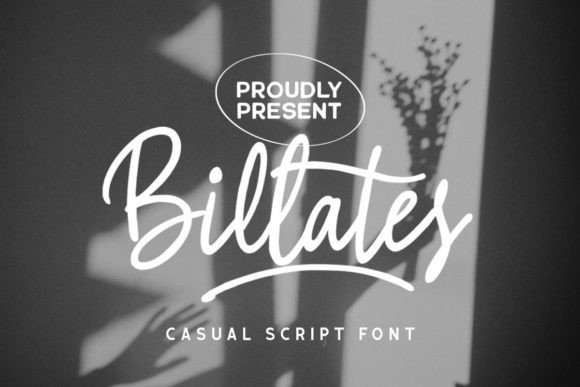
Dive into the world of Billates, a spectacular script font that embodies the essence of relaxed sophistication. Its fluid strokes, reminiscent of a carefree hand, weave a tale of elegance and simplicity. This font possesses an innate ability to transform your design projects into works of art.
With Billates, you can effortlessly craft handwritten notes that radiate warmth and thoughtfulness, and product packaging that exudes a polished yet approachable charm. Its versatility extends to social media posts, adding a touch of casual elegance to your online presence.
Step into the realm of wedding invitations and programs, where Billates flourishes as the perfect companion. Its graceful curves and delicate details lend an air of romance and timeless beauty to these cherished keepsakes. Capture the essence of love and commitment with every letter penned in this exquisite font.
But Billates' allure doesn't stop there. It seamlessly adapts to logos and branding, infusing them with a touch of whimsical creativity. Your brand identity will blossom with a unique charm that sets you apart from the ordinary.
Let Billates weave its magic into your creative projects. Its approachable nature invites you to explore endless possibilities, from heartfelt greeting cards to captivating marketing materials. Unleash your imagination and let this font guide you towards design brilliance.